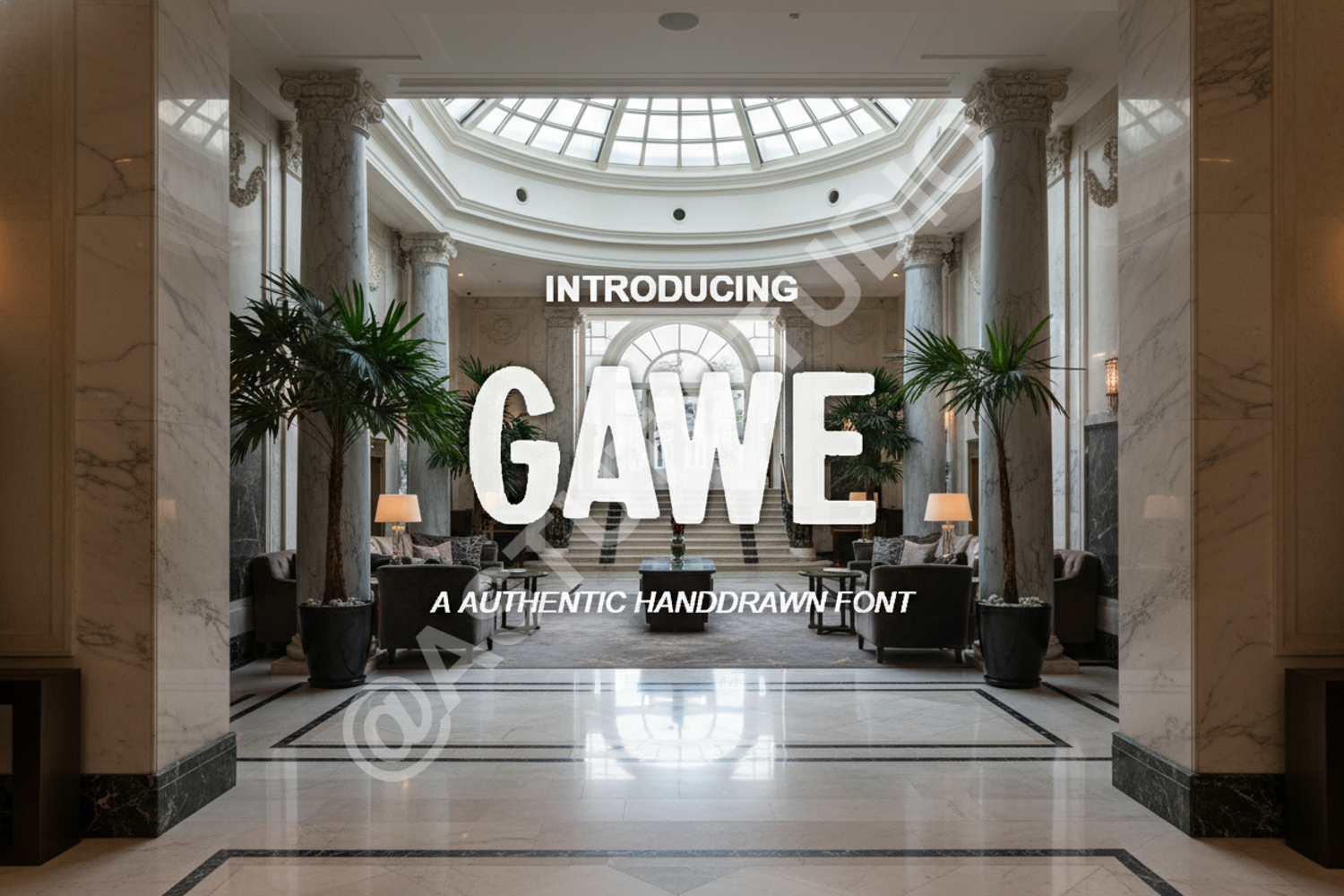
Gawe - Modern and Bold Display Typeface
Gawe
Gawe is a meticulously crafted display font designed to bring a touch of modern sophistication to any creative project. With its clean lines and bold presence, Gawe offers a unique blend of professional elegance and contemporary flair, making it an essential addition to any designer's toolkit. Whether you are aiming for a minimalist look or a high-impact statement, Gawe provides the versatility needed to excel in various digital and print environments.
- Branding and Visual Identity
- Professional Logo Design
- Social Media Graphics and Content
- Poster and Flyer Layouts
- Website Headers and Hero Images
- Editorial and Magazine Design
- Product Packaging and Labels